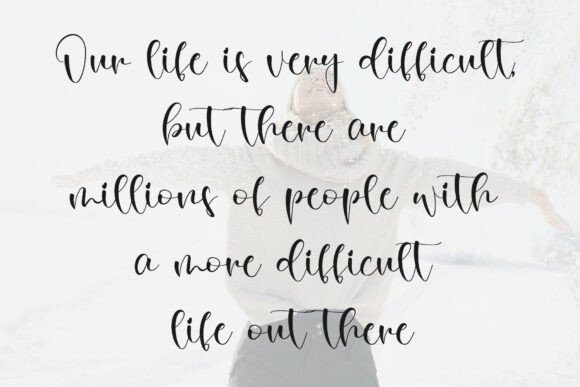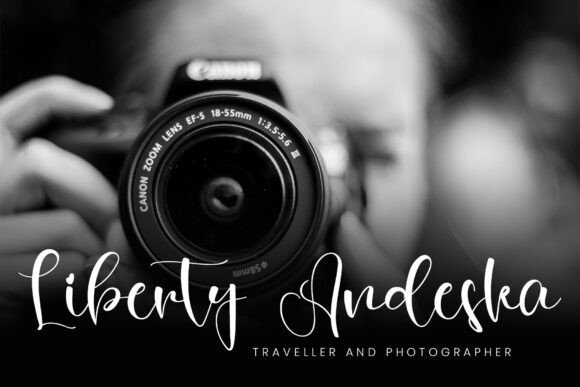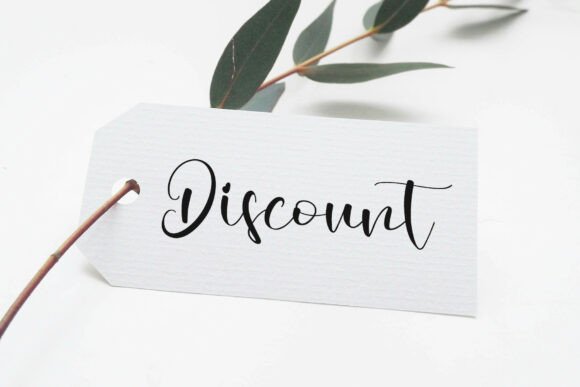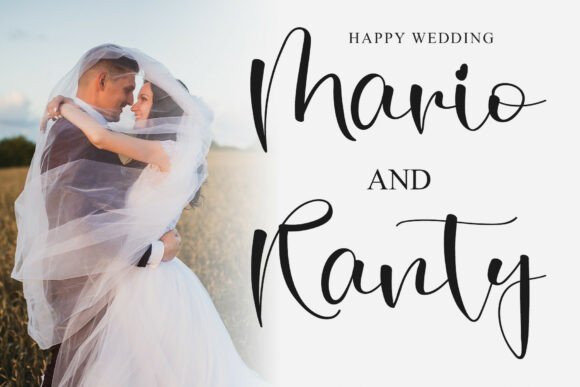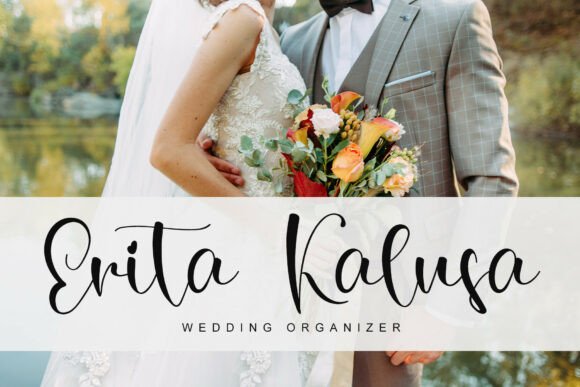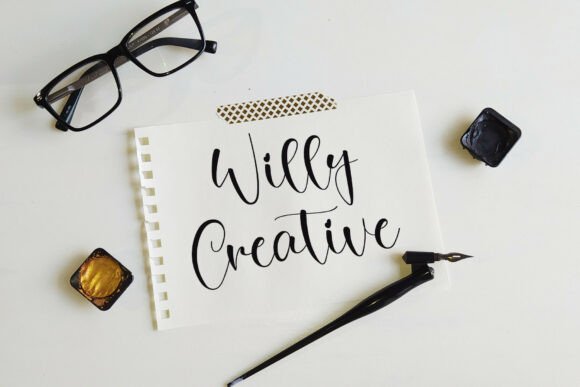
Introducing Glorify Valentine Font: The Epitome of Elegance and Human Touch
In a world where digital communication dominates, the Glorify Valentine font emerges as a beacon of elegance and personal connection. This beautiful script handwriting font is designed to capture the essence of human touch, bringing a sense of nostalgia and warmth to any project. With its fluid, flowing strokes that seem to have been penned just moments ago, Glorify Valentine is the perfect choice for designers and crafters looking to add a touch of sophistication and approachability to their work.
The Characteristics of Glorify Valentine Font
The Glorify Valentine typeface is crafted to feel authentic and warm, making it an ideal choice for projects that require a “handmade” or “bespoke” aesthetic. Its rhythmic loops and natural connections give it a sophisticated yet approachable character, perfect for a wide range of applications. The font’s fluid strokes and elegant letterforms evoke a sense of intimacy and personal connection, making it perfect for designs that aim to resonate with the audience on a deeper level.
Whether you are designing a high-end travel blog, intimate event stationery, or romantic poetry books, the Glorify Valentine font provides the perfect balance of legibility and artistic flair. Its versatility makes it a valuable addition to any designer’s toolkit. Here are some ways you can use Glorify Valentine to elevate your designs:
- Personalized Stationery: Add a touch of elegance to your “thank you” cards, invitations, and event stationery with the Glorify Valentine font.
- Photography Watermarks: Use Glorify Valentine as a professional watermark on your photography to add a touch of sophistication and personality.
- Romantic Poetry Books: Create beautifully designed poetry books with Glorify Valentine as the heading font, adding a touch of romance and elegance to your publication.
- Fashion Branding: Pair Glorify Valentine with simple, clean sans-serif fonts to create a modern, high-contrast look that is popular in editorial layouts and fashion branding.
Pairing Glorify Valentine with Other Fonts
To create a stunning visual impact, pair Glorify Valentine with simple, clean sans-serif fonts. This combination results in a modern, high-contrast look that is perfect for editorial layouts, fashion branding, and high-end designs. The contrast between the elegant script of Glorify Valentine and the simplicity of sans-serif fonts creates a visually appealing harmony that elevates your design to the next level.
Why Choose Glorify Valentine Font?
There are several reasons why Glorify Valentine font stands out as a top choice for designers and crafters:
- Authentic and Warm: Glorify Valentine is designed to feel authentic and warm, adding a human touch to your designs.
- Elegant and Sophisticated: The font’s fluid strokes and elegant letterforms make it perfect for high-end designs and projects that require a touch of sophistication.
- Versatile: Glorify Valentine is suitable for a wide range of applications, from stationery and event designs to fashion branding and poetry books.
- Legible and Artistic: The font provides the perfect balance of legibility and artistic flair, making it easy to read and visually appealing.
In conclusion, the Glorify Valentine font is a beautiful and elegant script handwriting font that captures the essence of human touch. Its fluid, flowing strokes and rhythmic loops make it perfect for designers and crafters looking to add a touch of sophistication and approachability to their work. With its versatility, legibility, and artistic flair, Glorify Valentine is an excellent choice for a wide range of design applications. Whether you are designing stationery, event materials, or fashion branding, Glorify Valentine is sure to elevate your designs to the next level.